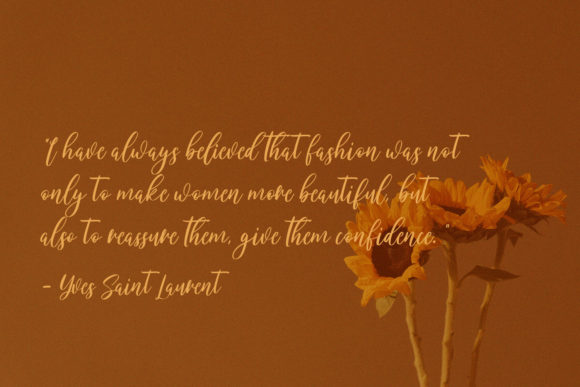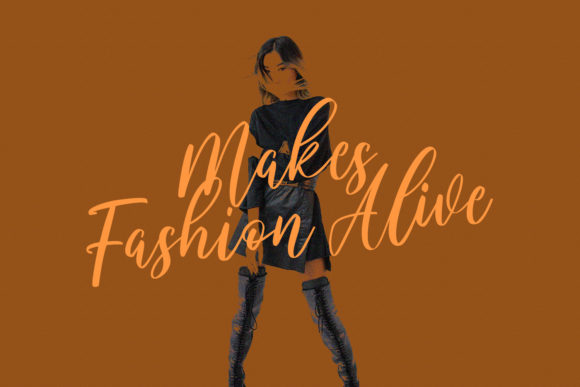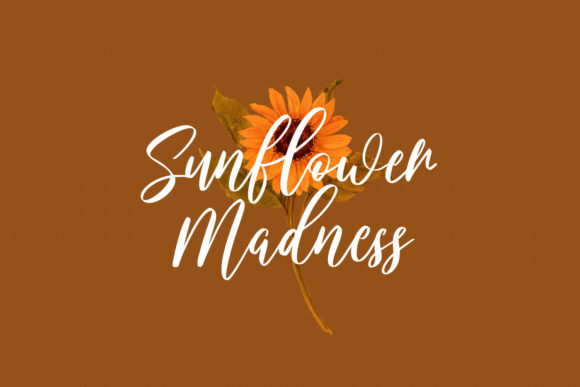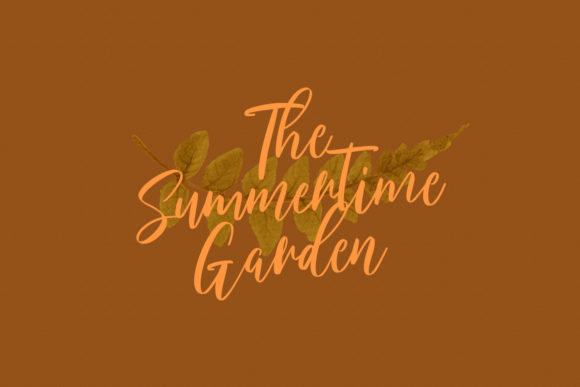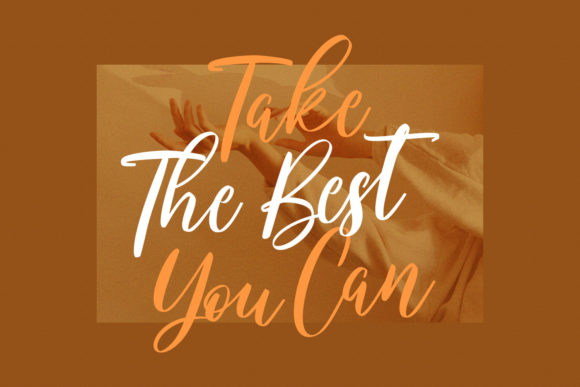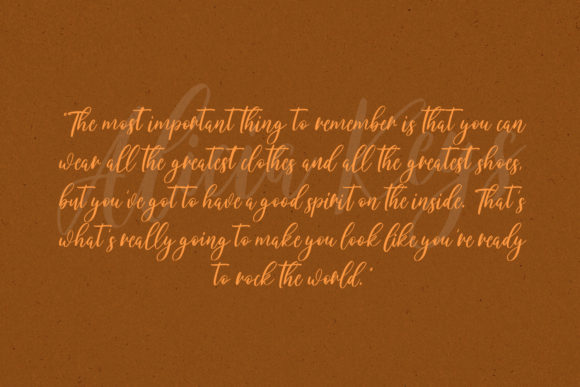
Bloomshine Font: Elevate Your Designs with a Stylish and Casual Handwritten Touch
Are you searching for a font that adds a friendly yet elegant touch to your creations? Look no further than Bloomshine Font! This stylish and casual handwritten font is designed to bring a feminine and fun vibe to your designs, making it perfect for crafters, designers, and anyone looking to add a personal touch to their work.
The Charm of Bloomshine Font
Bloomshine Font boasts feminine strokes that exude a sense of elegance and sophistication. Its casual and handwritten nature makes it an excellent choice for designers who want to add a personal and approachable feel to their work. Whether you’re creating invitations, branding materials, or social media graphics, Bloomshine Font is sure to make your designs stand out.
Key Features of Bloomshine Font
- Feminine Strokes: Bloomshine Font features delicate and feminine strokes that add a touch of elegance to your designs.
- Casual and Handwritten: The font’s casual and handwritten nature makes it perfect for designers who want to add a personal and approachable feel to their work.
- Fun Character: Bloomshine Font has a fun and playful character that is sure to bring a smile to your audience’s faces.
- Elegant Touch: The font’s elegant strokes and classic design make it an excellent choice for designers who want to add a touch of sophistication to their work.
Perfect for Beautiful Creations
Bloomshine Font is the perfect match for all your beautiful creations that need a friendly yet elegant touch. Whether you’re designing:
- Wedding Invitations: Add a touch of elegance and romance to your wedding invitations with Bloomshine Font.
- Branding Materials: Use Bloomshine Font to create a friendly and approachable brand identity that resonates with your audience.
- Social Media Graphics: Add a pop of personality to your social media graphics with Bloomshine Font.
- Crafting Projects: Use Bloomshine Font to add a personal touch to your crafting projects, such as handmade cards and gift tags.
Why Choose Bloomshine Font?
With so many fonts available, why choose Bloomshine Font? Here are just a few reasons:
- Unique Design: Bloomshine Font has a unique and distinctive design that sets it apart from other fonts.
- Versatile: The font is versatile and can be used for a wide range of design projects.
- Easy to Read: Bloomshine Font is easy to read, making it perfect for body text and headlines.
- High-Quality: The font is of high quality, ensuring that your designs look professional and polished.
In conclusion, Bloomshine Font is a stylish and casual handwritten font that is perfect for designers and crafters who want to add a friendly yet elegant touch to their creations. With its feminine strokes, fun character, and elegant design, Bloomshine Font is sure to elevate your designs and make them stand out. So why wait? Try Bloomshine Font today and see the difference it can make in your designs!